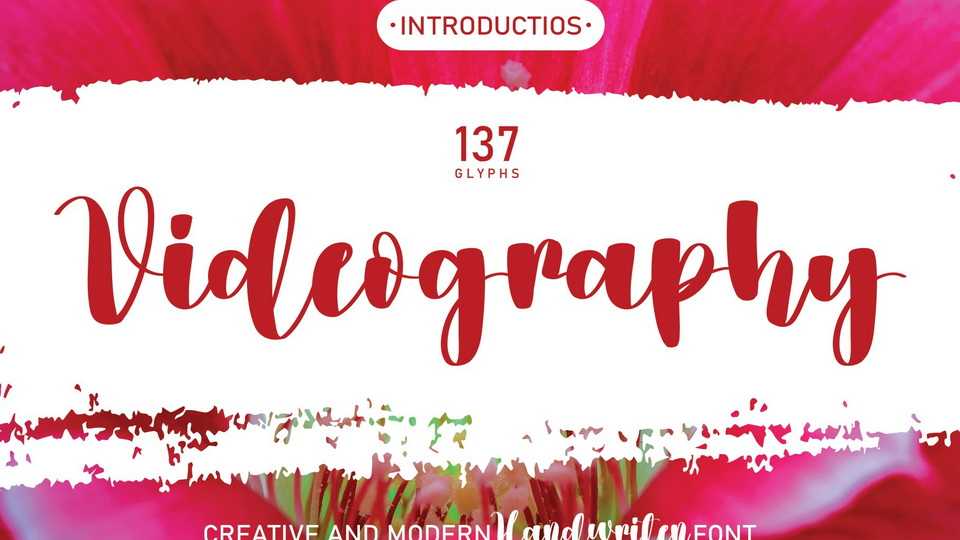
Download Videography font, a playful hand painted brush typeface made of beautiful creative strokes. Videography font is perfect for your creative ideas, both formal and informal.